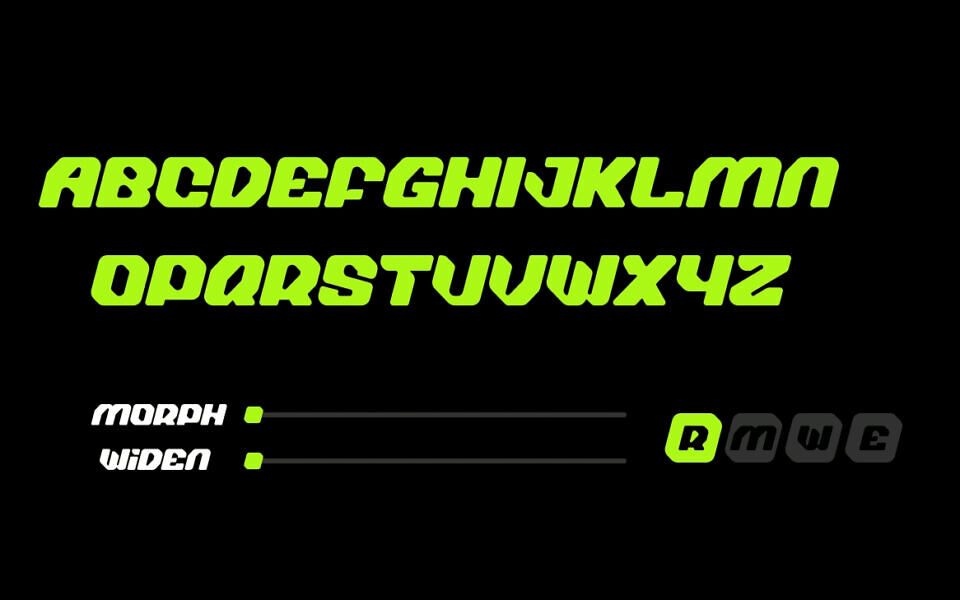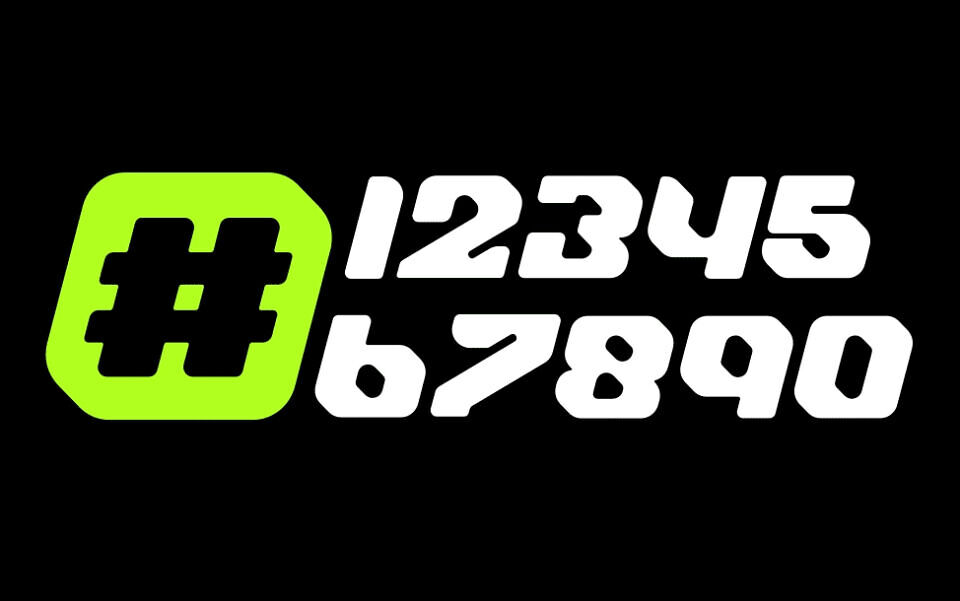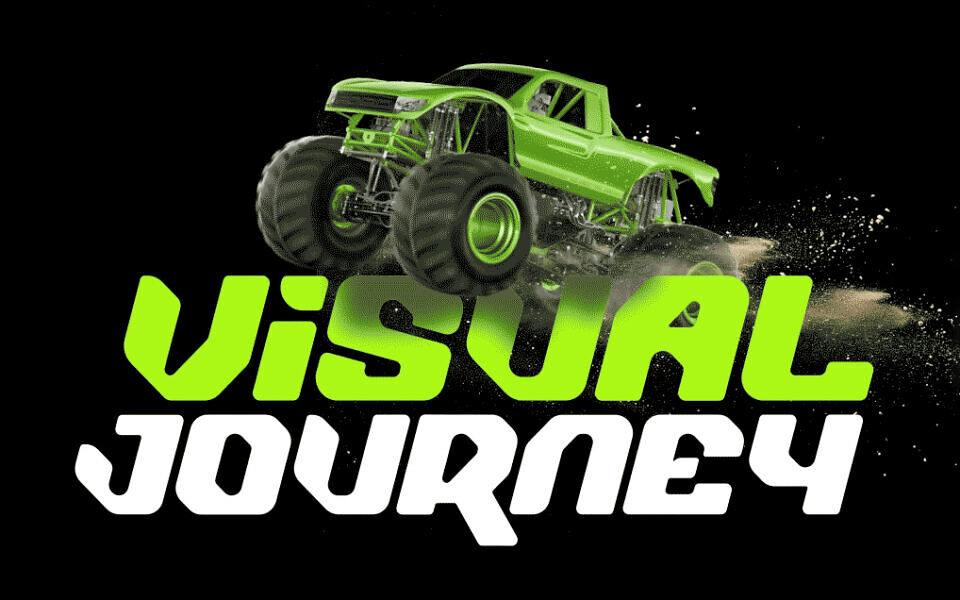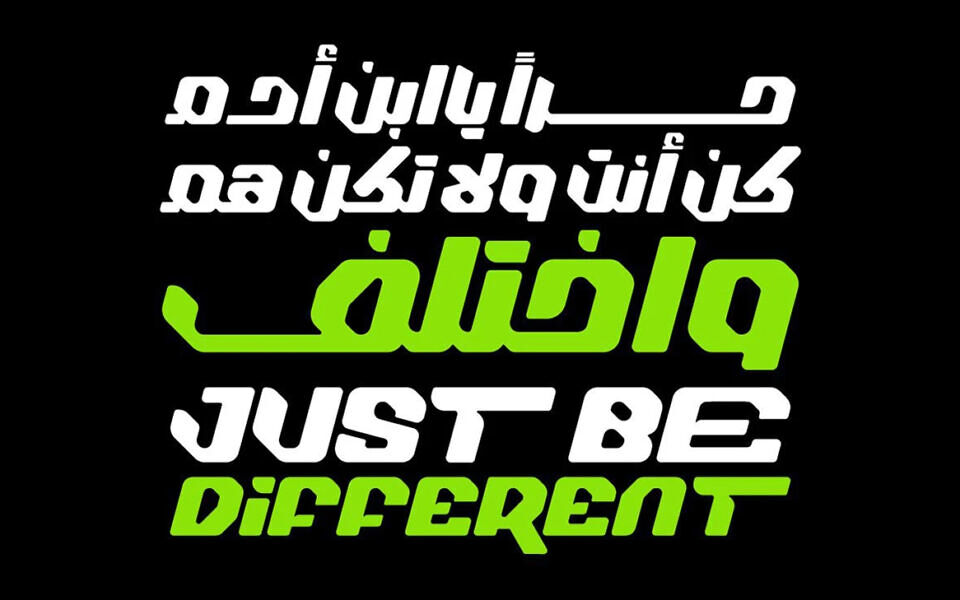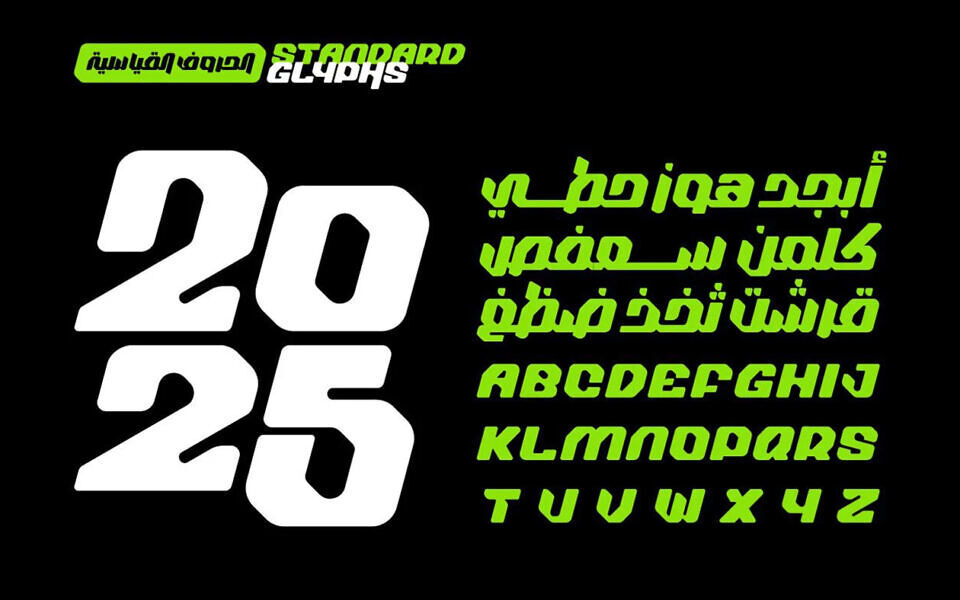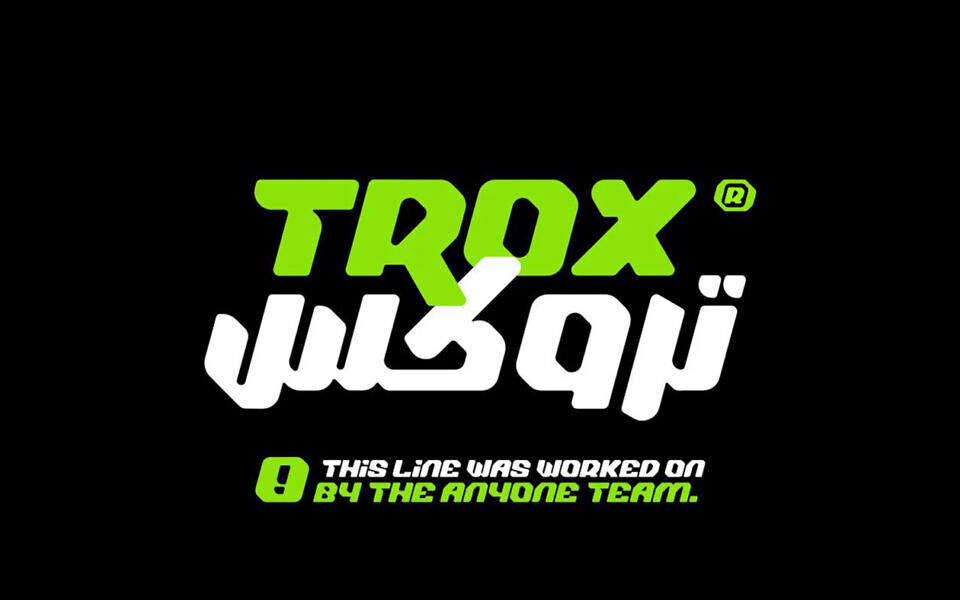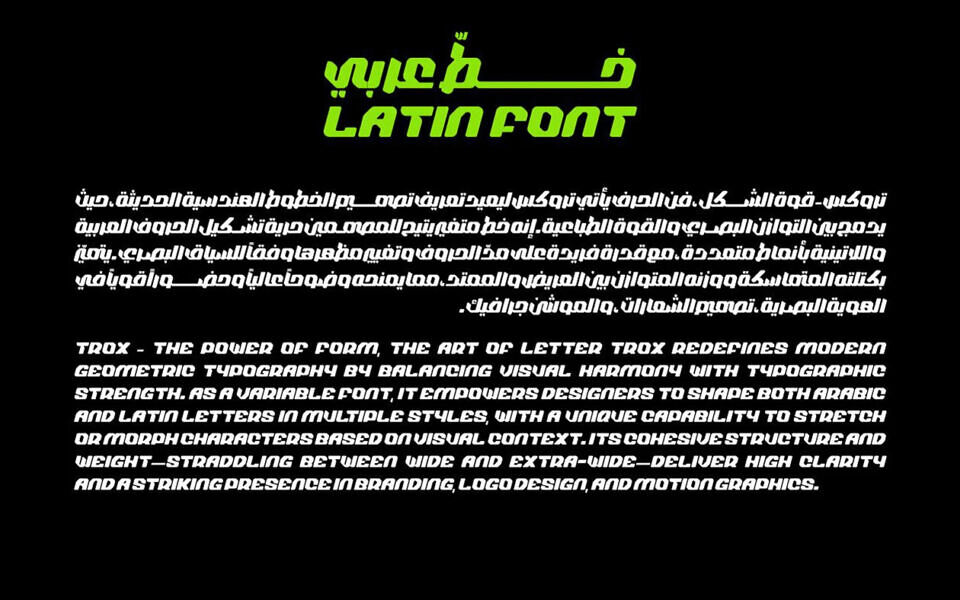
Trox Font
TROX redefines geometric typography, blending visual harmony with typographic strength. As a variable font, it enables designers to craft Arabic and Latin letters in diverse styles, with unique character-stretching capabilities based on visual context.
Its cohesive, wide to extra-wide structure ensures clarity and bold presence, making it ideal for branding, logo design, and motion graphics.
Designed by: Anyone ae®